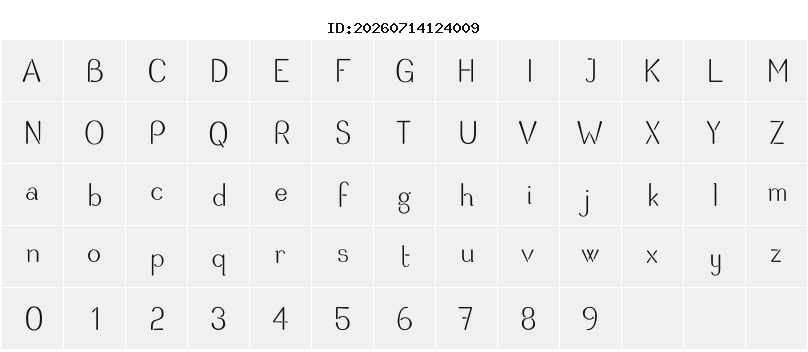
Haven Preview
• Font Name: Haven
• Full Font Name: Haven
About Haven.otf
Haven.otf is a modern, elegant sans-serif font designed for ultimate readability and visual harmony. Perfect for branding, headlines, web design, and print materials.